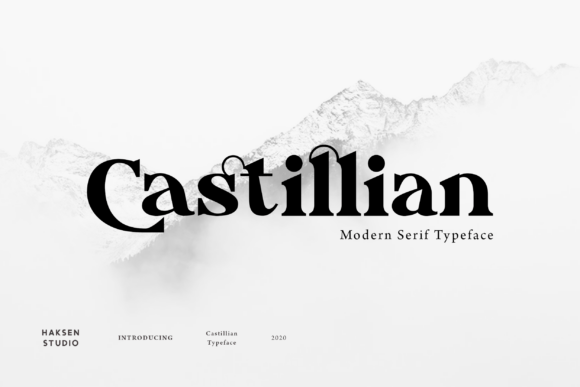
Introducing the Castillian Font: Elevate Your Designs with Elegance and Versatility
The world of typography is vast and diverse, offering a multitude of fonts that can make or break the visual appeal of any design. Among these, the Castillian font stands out as a beacon of modernity and sophistication. This sleek and modern serif style font is designed to perfectly balance uppercase and lowercase letters, providing a delightful touch to any letter design. In this article, we will delve into the features, applications, and usage tips of the Castillian font, exploring how it can elevate your designs to new heights.
The Castillian Font: A Symphony of Balance and Elegance
Castillian is not just another font; it’s an experience. Its sleek and modern serif style is crafted to marry uppercase and lowercase letters in a harmonious balance. This balance is not merely aesthetic; it brings a level of readability and elegance that is hard to achieve with more traditional fonts. Whether you’re working on a headline, a logo, a poster, or packaging, Castillian provides a level of sophistication that can make your design stand out.
Key Features of Castillian Font
- Sleek and Modern Serif Style: Castillian boasts a contemporary look that fits well with current design trends.
- Balanced Uppercase and Lowercase: The font’s design ensures that both cases are beautifully balanced, making it perfect for a wide range of applications.
- Alternate Font Options: Enriched with alternate font options in both uppercase and lowercase, Castillian offers versatility and uniqueness to your designs.
- OpenType Features: The font supports OpenType features, particularly ligatures in uppercase characters, which can be accessed through software like Adobe Illustrator and Adobe Photoshop.
Applications of Castillian Font
One of the remarkable aspects of Castillian is its versatility. It’s not limited to a specific type of design but can be used across various platforms and materials. Here are some of the ideal applications for Castillian:
- Headlines and Titles: The elegant and modern look of Castillian makes it perfect for headlines and titles, adding a touch of sophistication to any article, blog post, or advertisement.
- Logos and Branding: For businesses looking to create a logo or rebrand, Castillian offers a unique and memorable style that can represent a brand’s identity.
- Posters and Flyers: The font’s readability and aesthetic appeal make it an excellent choice for posters and flyers, ensuring your message stands out.
- Packaging: Castillian can add a level of luxury and sophistication to product packaging, making it more appealing to potential customers.
- T-shirts and Merchandise: The font’s stylish look makes it suitable for T-shirts and other merchandise, providing a fashionable and trendy vibe.
Maximizing Castillian’s Potential: Usage Tips
- Accessing Alternate Characters: For accessing the fontβs alternate characters, go to Window >> Glyphs in both Adobe Illustrator and Photoshop. This feature allows for even more customization and creativity in your designs.
In conclusion, the Castillian font is a powerful tool for designers looking to add a touch of elegance and modernity to their work. Its balanced design, versatile applications, and support for OpenType features make it an excellent choice for a wide range of projects. By understanding its features and how to maximize its potential, you can create designs that are not only visually appealing but also memorable. Should you have any queries or need further assistance, don’t hesitate to reach out. Here’s to making your designs as wonderful as your day!